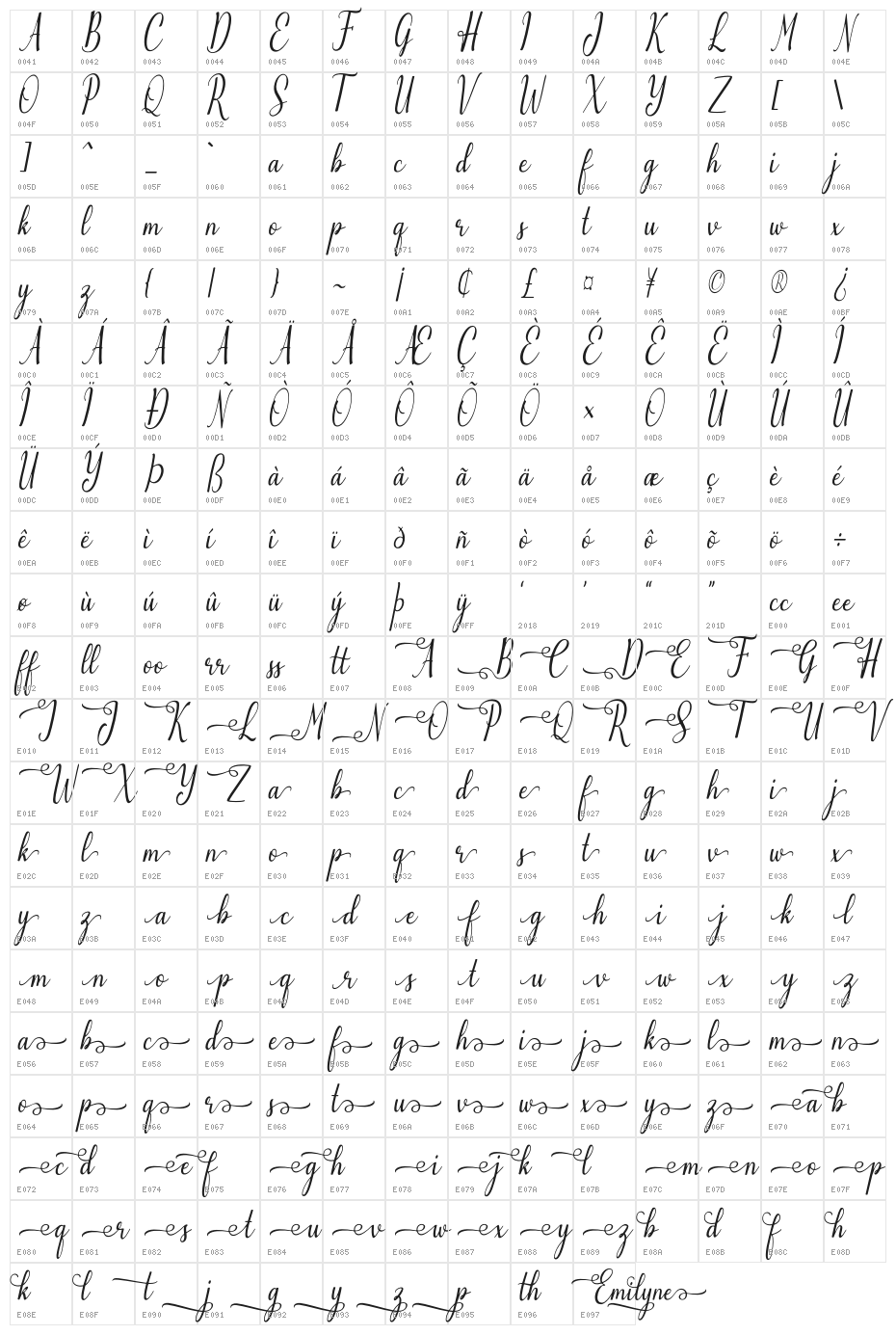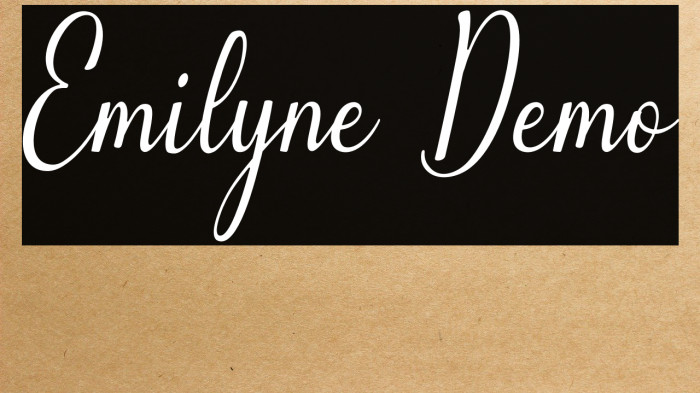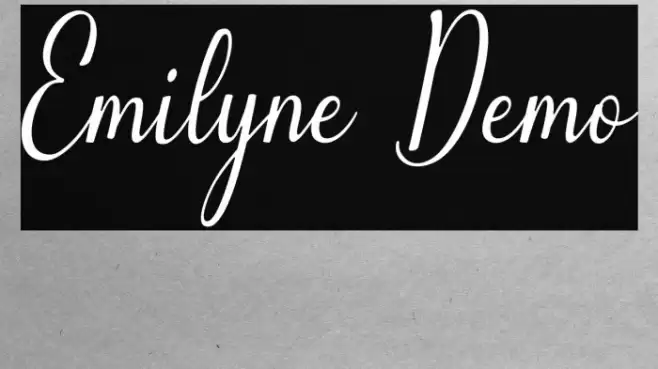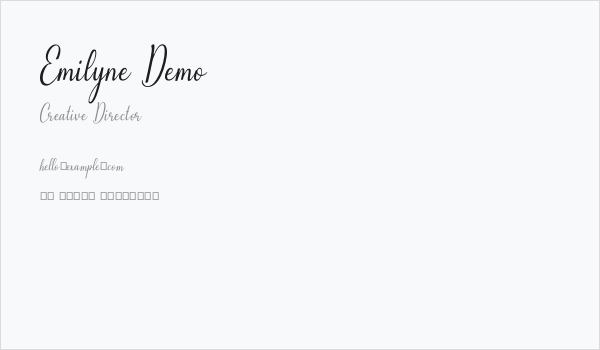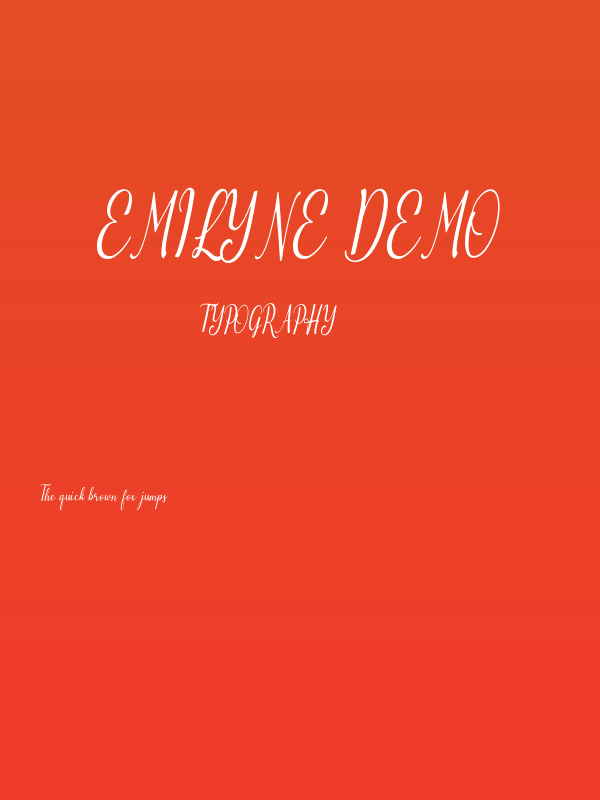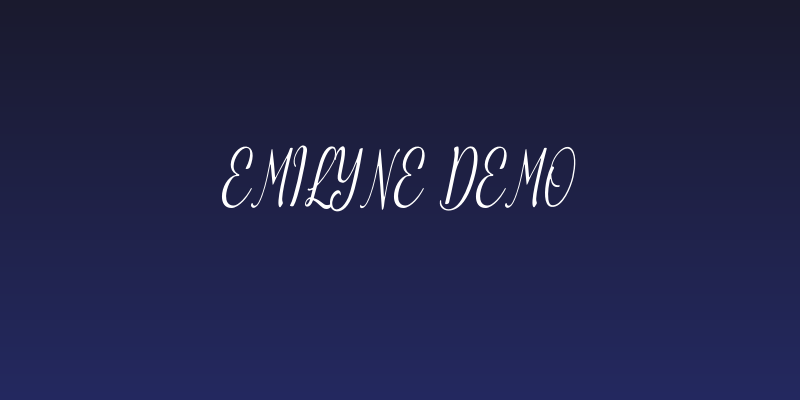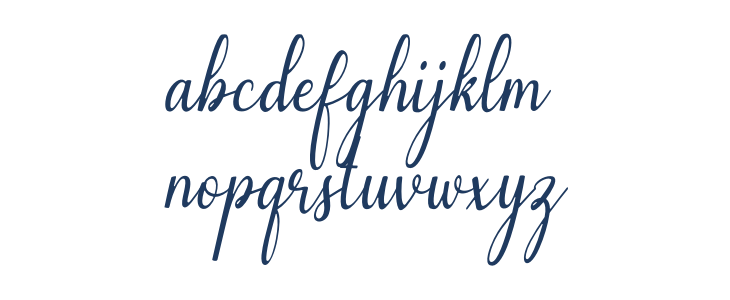
Emilyne Demo Font
Emilyne Demo Description
This elegant script font features a flowing, cursive style with a modern touch. The uppercase letters are tall and slender, with graceful loops and swashes that add a sense of movement and sophistication. The lowercase letters maintain a consistent flow, with rounded forms and smooth connections between characters. This font exudes a sense of elegance and refinement, making it ideal for formal invitations, branding, and decorative purposes. The overall design is both stylish and versatile, suitable for a variety of creative projects.
| Proposed Projects | Ideal for wedding invitations, branding, greeting cards, and decorative designs. |